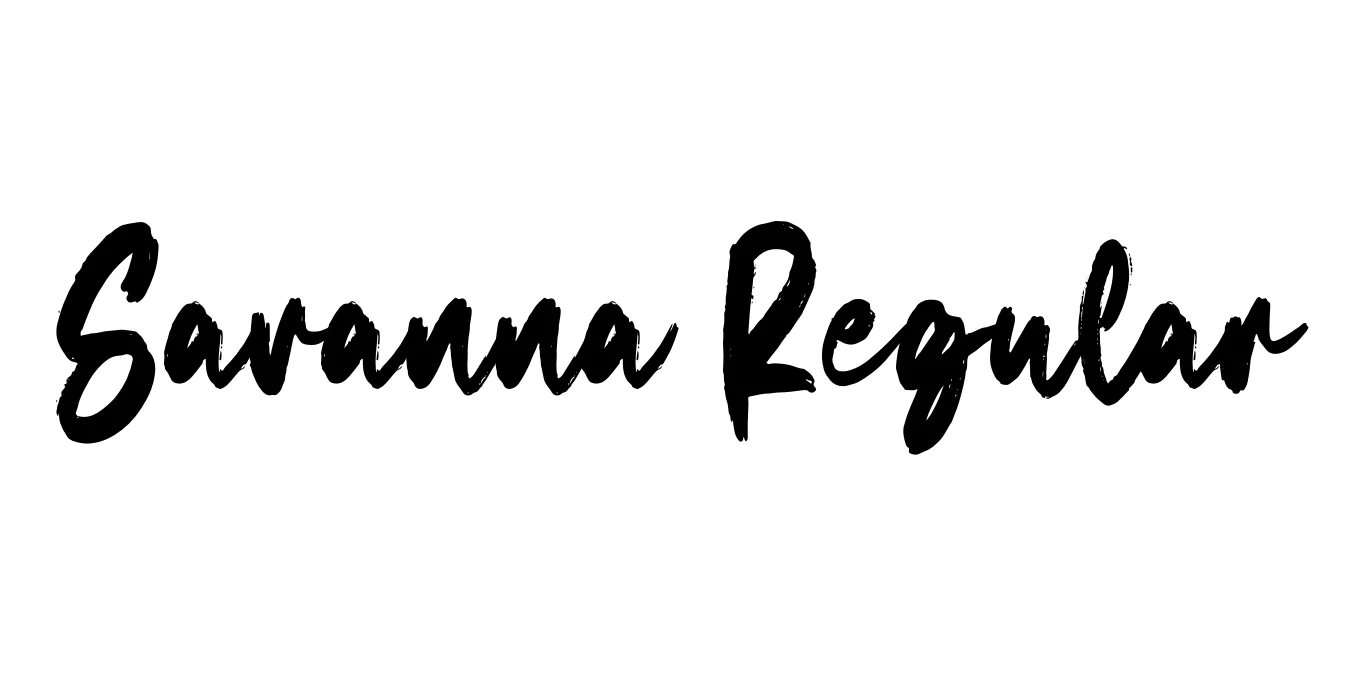
Savanna Regular
Designed by Billy Argel
Savanna Regular is a beautifully crafted script typeface that embodies the fluidity and grace of natural handwriting. Designed by the renowned Billy Argel, this font features sweeping curves and elegant ligatures that create a seamless, organic flow, making it an ideal choice for projects that require a touch of personal sophistication and artistic flair.
The font is built with high-quality vector outlines, ensuring crisp reproduction at any scale, from small business cards to large outdoor signage. Its versatile character set and expressive strokes make it a staple for designers looking to convey warmth, luxury, and a hand-made aesthetic in contemporary branding and editorial design.
Savanna Regular Best Uses
Perfect for creating romantic invitations, save-the-date cards, and place settings.
Ideal for fashion logos, beauty products, and lifestyle brand identities.
Excellent for magazine headers, quote graphics, and book cover titles.